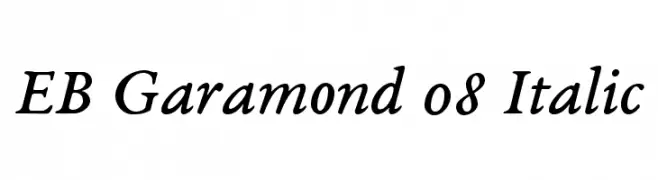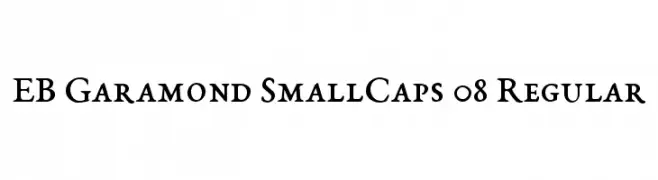
A classic serif font with small caps and moderate contrast, ideal for formal and traditional designs.
An elegant, classic italic serif font with refined, flowing characters.